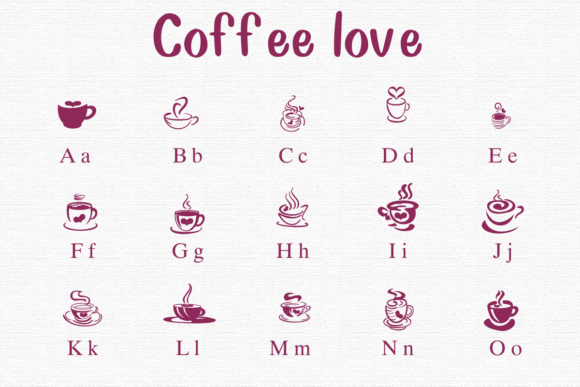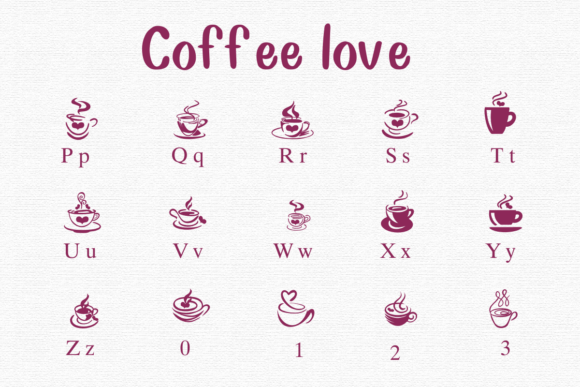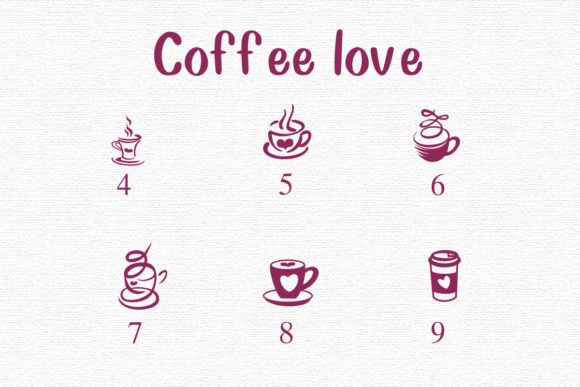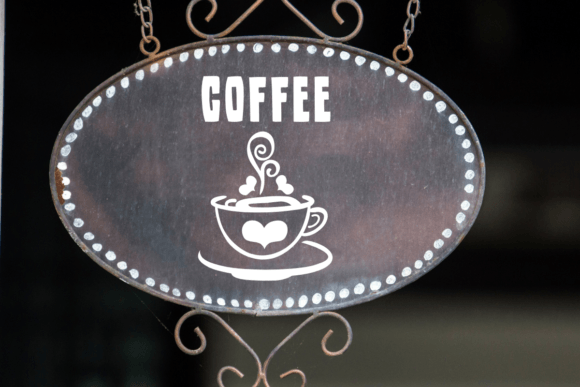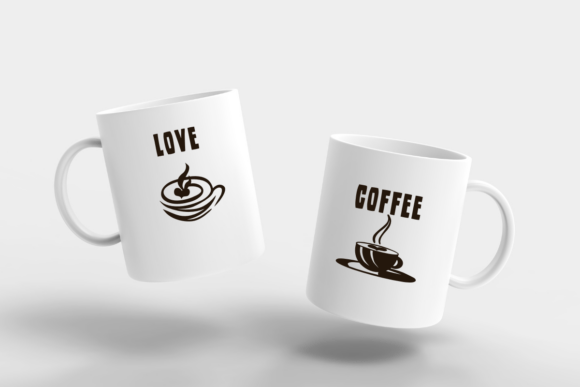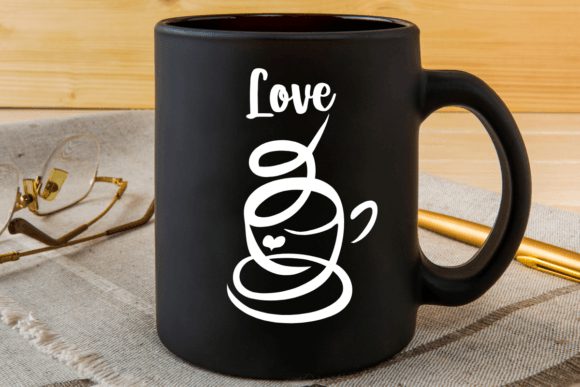
Coffee Love Font: The Perfect Addition to Your Creative Projects
Are you a designer, crafter, or DIY enthusiast looking for a unique and creative font to enhance your projects? Look no further than the Coffee Love Font, a charming dingbats font with a sketched theme that’s sure to capture the hearts of coffee lovers and crafty individuals alike.
What is Coffee Love Font?
Coffee Love Font is a specially designed dingbats font that features a range of coffee-themed illustrations, including coffee cups, beans, and other related icons. The font is carefully crafted with a sketched theme, giving it a personal and hand-drawn feel that’s perfect for adding a touch of warmth and personality to your creative projects.
Uses of Coffee Love Font
Coffee Love Font is an incredibly versatile font that can be used in a wide range of creative projects, including:
• Wedding Invitations: Add a touch of romance and whimsy to your wedding invitations with Coffee Love Font’s charming coffee-themed illustrations.
• DIY and Crafts: Use Coffee Love Font to create unique and personalized DIY projects, such as scrapbook pages, journal entries, and handmade cards.
• Decorations: Create eye-catching decorations, such as wall art, banners, and garlands, using Coffee Love Font’s delightful illustrations.
• Logos and Branding: Use Coffee Love Font to create a distinctive and memorable logo for your coffee shop, cafe, or coffee-related business.
• Social Media Graphics: Add a touch of personality to your social media graphics, such as Instagram posts, Facebook covers, and Twitter headers, with Coffee Love Font.
Features of Coffee Love Font
Coffee Love Font boasts a range of features that make it an ideal choice for designers and crafters, including:
• Unique Illustrations: Coffee Love Font features a range of unique and original coffee-themed illustrations that are sure to capture the hearts of coffee lovers.
• Sketched Theme: The font’s sketched theme gives it a personal and hand-drawn feel that’s perfect for adding a touch of warmth and personality to your projects.
• Easily Readable: Despite its decorative nature, Coffee Love Font is easily readable, making it perfect for use in a wide range of creative projects.
• Scalable: Coffee Love Font is highly scalable, allowing you to use it in projects of all sizes, from small icons to large banners.
Tips for Using Coffee Love Font
To get the most out of Coffee Love Font, here are a few tips to keep in mind:
• Experiment with Colors: Coffee Love Font looks great in a range of colors, so don’t be afraid to experiment and find the perfect hue for your project.
• Mix and Match: Combine Coffee Love Font with other fonts and illustrations to create a unique and eye-catching design.
• Use it Sparingly: While Coffee Love Font is a beautiful font, it can be overwhelming if used too much. Use it sparingly to add a touch of personality to your project.
Font Name Coffee Love Font
Author Nongyao
Coffee Love Font is a charming and versatile dingbats font that’s perfect for designers, crafters, and DIY enthusiasts looking to add a touch of personality to their creative projects. With its unique illustrations, sketched theme, and easily readable design, Coffee Love Font is sure to become a favorite in your font collection. So why not give it a try and see how it can enhance your next creative project?